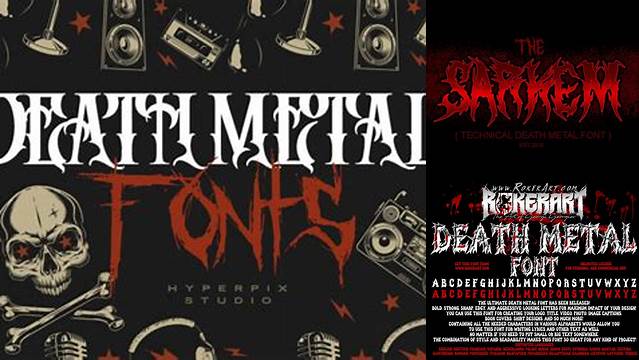
Free Death Metal Fonts For Commercial Use
Hey guys! Are you looking to add some serious metal edge to your designs? You've come to the right place! Finding the perfect death metal font that's also free for commercial use can be a real quest. But don't worry, we're going to break down everything you need to know to find those killer fonts without breaking the bank or getting into legal trouble. Let's dive in!
Exploring Death Metal Font Styles
When we talk about death metal fonts, we're talking about a specific aesthetic. These fonts are usually characterized by their aggressive, distorted, and often illegible appearance. Think sharp angles, jagged edges, and a generally menacing vibe. Some common styles include: Brutal Fonts: These are the most extreme, often featuring completely distorted letterforms that are barely recognizable. They’re perfect for album covers or band logos where impact is more important than readability. Spiky Fonts: These fonts incorporate sharp, pointy elements that evoke a sense of danger and aggression. They’re great for creating a visually striking effect. Grunge Fonts: These fonts have a rough, weathered look, as if they’ve been dragged through the depths of hell. They add a gritty, authentic feel to your designs. Blackletter-Inspired Fonts: Some death metal fonts draw inspiration from traditional blackletter or gothic fonts, but with a modern, distorted twist. These can add a touch of dark elegance to your projects. Experiment with different styles to find the perfect font that matches the mood and message of your design. Remember, the goal is to create a visually impactful and memorable impression.
Using Free Fonts in Logos
Using free death metal fonts in logos can be a powerful way to create a distinctive and memorable brand identity. However, there are some important considerations to keep in mind. First, ensure the font is legible enough to be recognizable in various sizes and formats. While death metal fonts are known for their extreme styles, readability is still crucial for a logo. Second, consider the overall aesthetic and message of your brand. Does the font accurately represent your brand's personality and values? A poorly chosen font can send the wrong message to your audience. Third, make sure the font is scalable and works well in both print and digital formats. Test the logo in different sizes and applications to ensure it looks good across all platforms. Fourth, be mindful of font pairings. Choose complementary fonts for other elements of your brand identity, such as website copy or marketing materials. Finally, remember to check the license agreement to ensure the font is free for commercial use and can be used in a logo. By following these guidelines, you can create a killer logo using free death metal fonts that effectively represents your brand.
Typography Tips for Metal Designs
Creating awesome metal designs goes beyond just finding the right font. Here are some typography tips to elevate your work: Contrast is Key: Use contrasting font styles and sizes to create visual interest and hierarchy. Combine a bold death metal font with a clean, minimalist font for body text. Kerning and Tracking: Pay attention to kerning (the space between individual letters) and tracking (the overall spacing of letters in a word). Adjust these settings to improve readability and visual appeal. Leading: Adjust the leading (the space between lines of text) to create a comfortable reading experience. Too little leading can make the text look cramped, while too much can make it look disjointed. Color Palette: Choose a color palette that complements the font and overall design. Dark, moody colors like black, red, and gray are common in metal designs. Texture and Effects: Experiment with adding textures and effects to your text, such as grunge, metal, or 3D effects. These can enhance the visual impact and create a more immersive experience. Consistency: Maintain consistency in your typography throughout your design to create a cohesive and professional look. By following these tips, you can create metal designs that are both visually stunning and effectively communicate your message.
Combining Fonts Effectively
Mixing and matching fonts can be tricky, but when done right, it can add depth and personality to your designs. When combining fonts, aim for contrast. Pair a highly stylized death metal font with a simpler, more readable font. This ensures that the design remains balanced and accessible. Avoid using two fonts that are too similar, as this can create a jarring effect. Instead, look for fonts that complement each other in terms of weight, style, and personality. Consider using a font pairing tool or website to get inspiration and suggestions. These tools can help you find fonts that work well together and create a harmonious visual experience. Experiment with different combinations until you find a pairing that feels right. Don't be afraid to break the rules and try something unexpected. Just make sure the final result is visually appealing and effectively communicates your message. Remember, the goal is to create a cohesive and balanced design that captures the essence of your brand or project.
Creating Album Art with Free Fonts
Designing album art is a fantastic way to showcase free death metal fonts. The album cover is often the first impression a potential listener has of the music, so it's crucial to make it count. Start by understanding the mood and themes of the album. Choose a font that reflects the music's intensity and style. Consider the layout and composition of the cover. Use typography to create a focal point and guide the viewer's eye. Experiment with different text arrangements and placements. Don't be afraid to get creative and push the boundaries of traditional design. Use textures, effects, and imagery to enhance the visual impact of the font. Consider adding elements like skulls, flames, or other macabre imagery to reinforce the death metal aesthetic. Make sure the album title and band name are clearly legible, even with an extreme font. Test the design in various sizes and formats to ensure it looks good on different platforms, such as streaming services and physical copies. Get feedback from other designers or musicians to get fresh perspectives and identify areas for improvement. By following these tips, you can create album art that is both visually stunning and effectively represents the music.
Designing Merchandise with Metal Fonts
Using metal fonts on merchandise can be a great way to connect with your audience and generate revenue. T-shirts, hoodies, posters, and other items can become walking billboards for your brand. When designing merchandise, focus on creating designs that are both visually appealing and comfortable to wear. Choose fonts that are legible and scalable, so they look good on different sizes and types of merchandise. Consider the placement of the font on the item. Experiment with different layouts and arrangements to find the most visually effective design. Use color palettes that are consistent with your brand and appeal to your target audience. Think about the message you want to convey with your merchandise. Choose fonts and designs that align with your brand's personality and values. Ensure the font is licensed for commercial use, so you can legally sell merchandise featuring the design. Test the design on a sample product before ordering a large quantity to ensure it looks good and meets your expectations. Promote your merchandise through social media, email marketing, and other channels to reach your target audience. By following these tips, you can create merchandise that is both visually appealing and profitable.
The Importance of Kerning
Kerning is the adjustment of the space between individual letters in a word. Proper kerning is essential for creating readable and visually appealing typography. Poor kerning can make text look awkward and difficult to read. Some fonts have built-in kerning pairs that automatically adjust the spacing between certain letter combinations. However, you may need to manually adjust the kerning to achieve the desired result. Use your design software's kerning tool to adjust the spacing between letters. Pay attention to letter combinations that look too close or too far apart. Experiment with different kerning values to find the optimal spacing. Zoom in on the text to get a closer look at the kerning. Get feedback from other designers or users to get their opinions on the kerning. By paying attention to kerning, you can create typography that is both readable and visually pleasing.